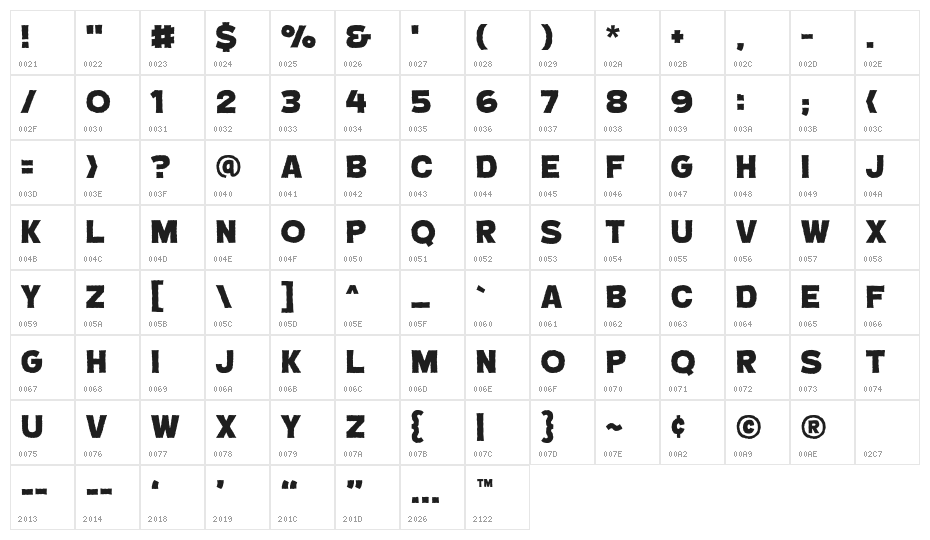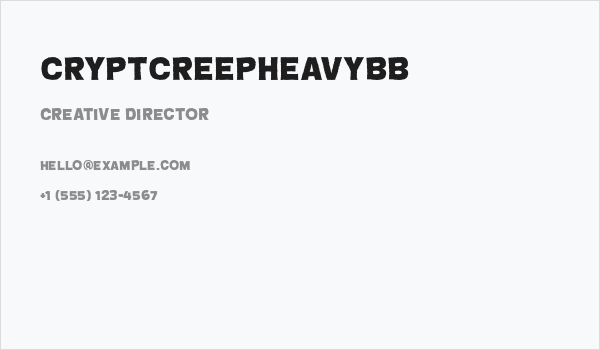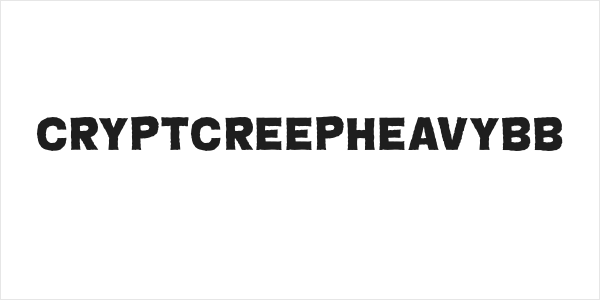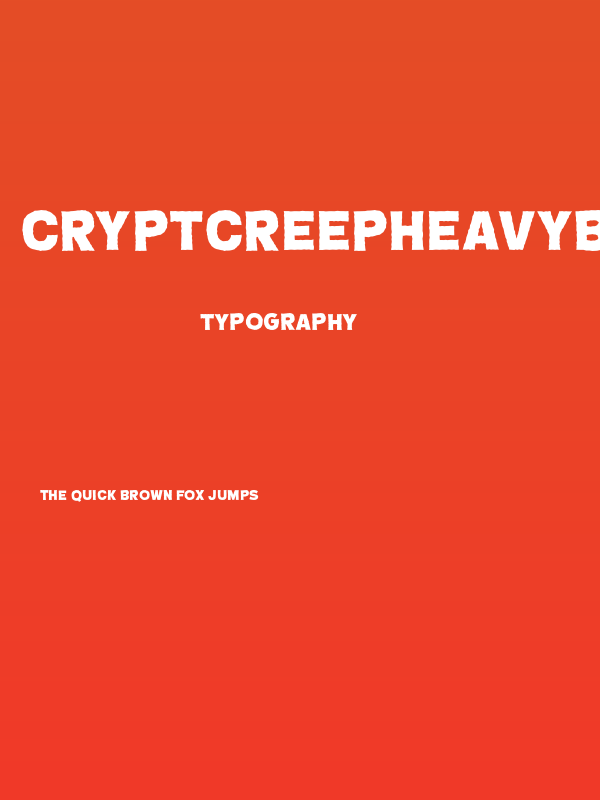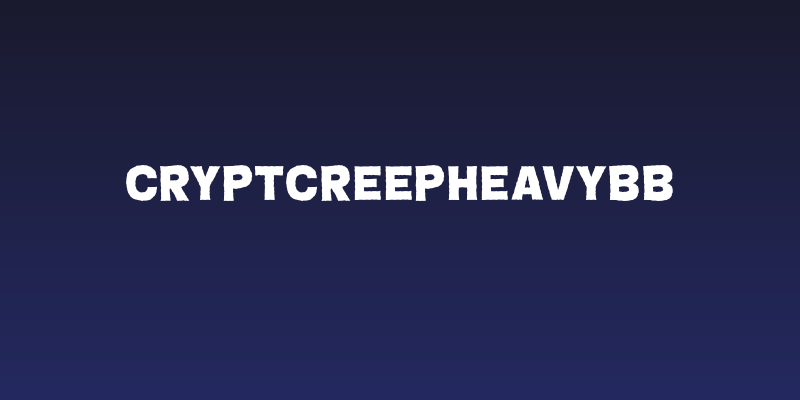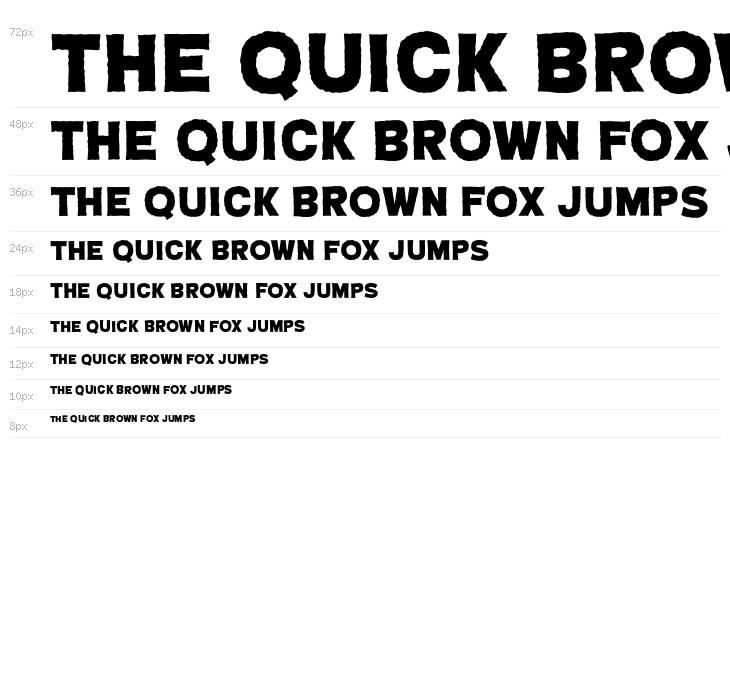
CryptCreepHeavyBB Font
CryptCreepHeavyBB Description
This font features a bold and heavy style with a slightly distressed appearance, giving it a rugged and impactful look. The characters are thick and substantial, with uneven edges that add a hand-crafted feel. The uppercase letters are prominent and commanding, while the lowercase letters maintain the same weight and presence. Numbers and special characters are equally bold, ensuring consistency across all elements. This font's unique texture and weight make it stand out, ideal for designs that require a strong visual impact.
| Proposed Projects | Perfect for posters, logos, headlines, and any design needing a bold, impactful statement. |